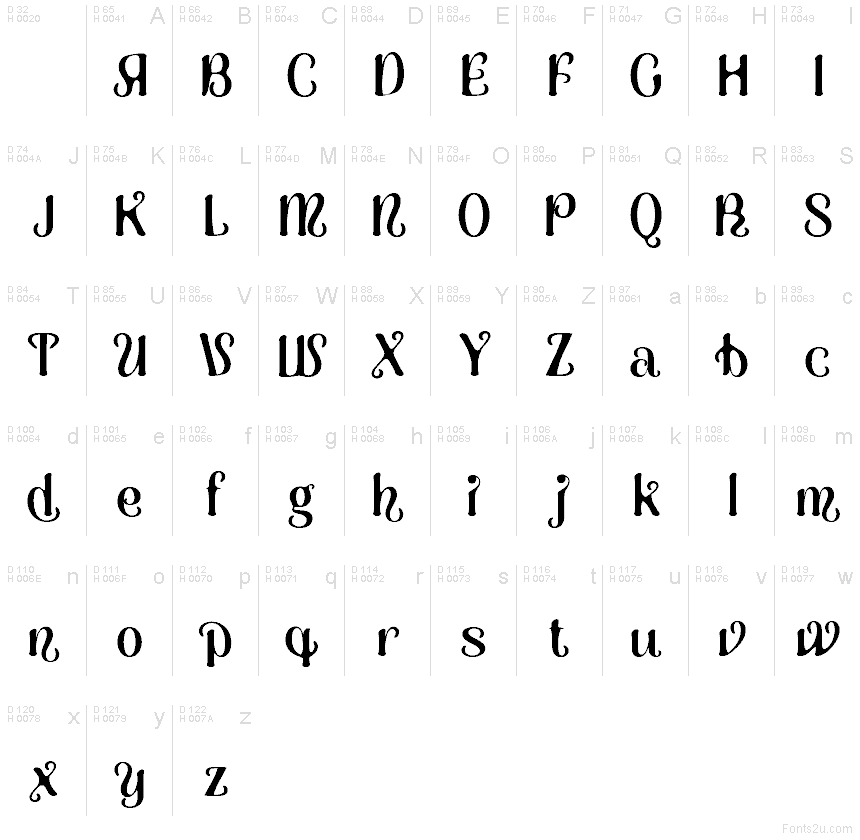
CS Redina Drawn font by Craft Supply Co. is a free bold curly decorative display font. Built within the CS Redina family, it leans into plush, hand-drawn curves and inky, high-contrast strokes that feel lively without tipping into chaos. The chunky rhythm, rounded terminals, and gentle bounce give it a playful elegance—like a brush script that learned restraint—so headlines read with warmth and confidence.
Using CS Redina Drawn, titles pop on bakery packaging, boutique logos, greeting cards, birthday invites, craft labels, and cheerful event posters. The generous curves create friendly momentum, while the dark texture holds up on social graphics and stickers. For balance, pair this free font with a light geometric sans, and let Redina take the larger point size with slightly looser tracking for airy charm.